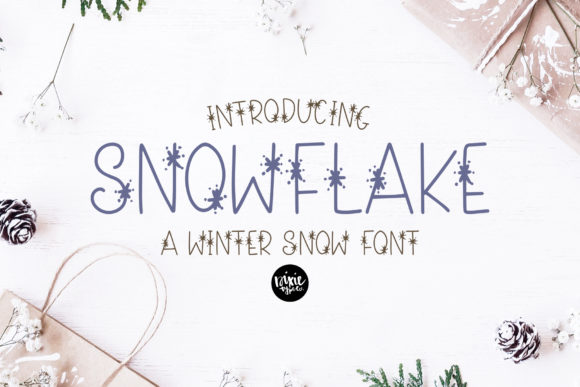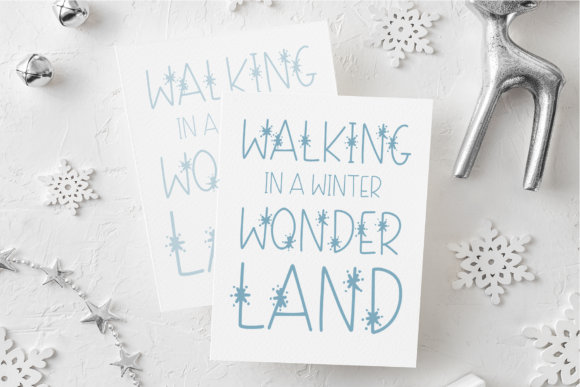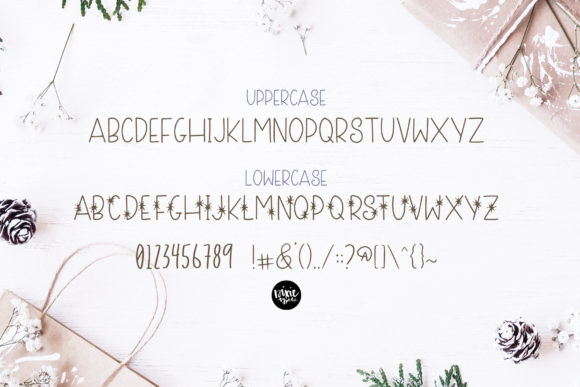
Snowflake Font
Snowflake is a fun decorative font with a winter theme. Add this font to your favorite creative ideas and notice how it makes them come alive!